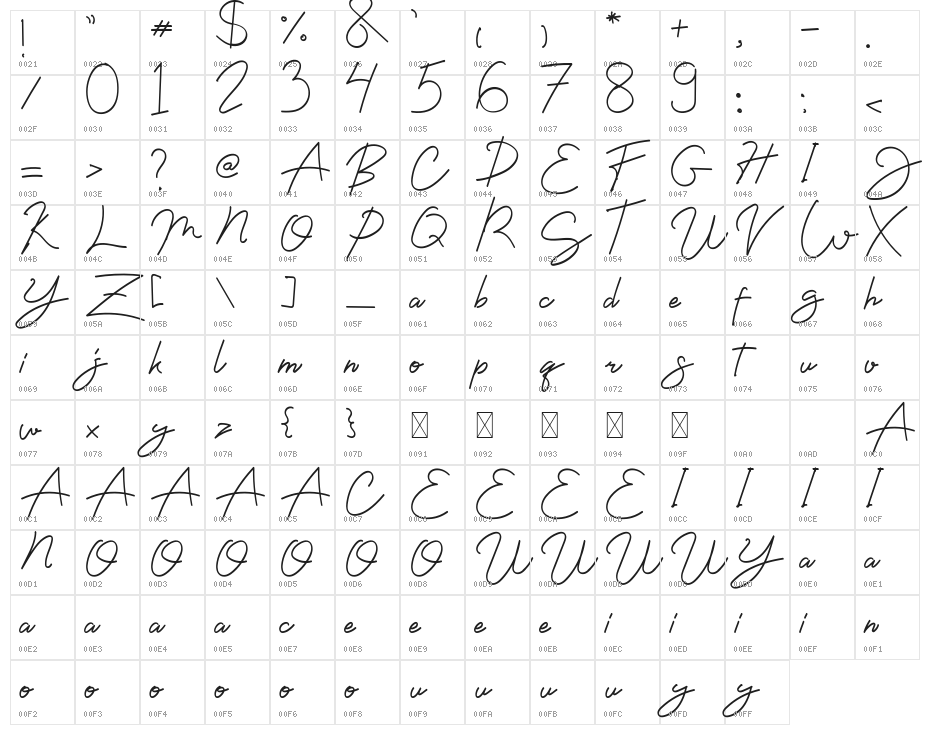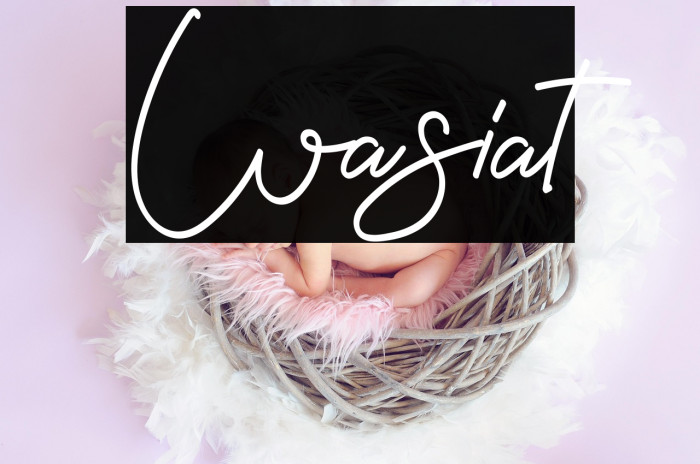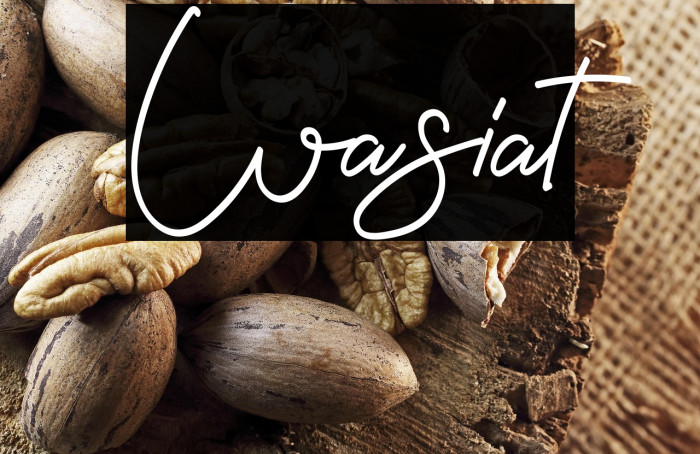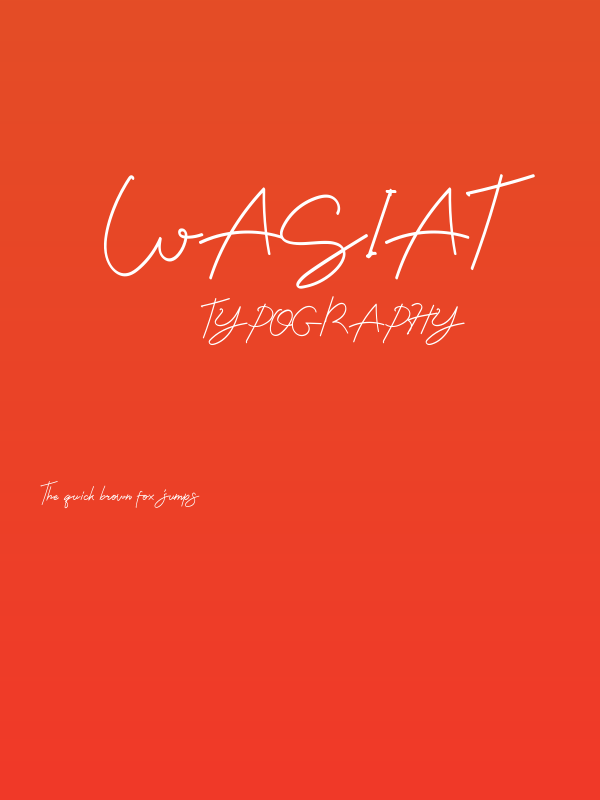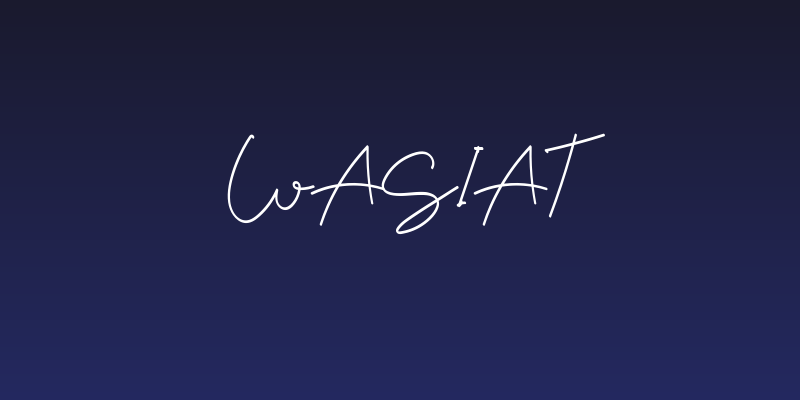
Wasiat Font
Wasiat Description
This font exhibits a dynamic and fluid script style, characterized by its elegant, flowing lines and cursive letterforms. The uppercase letters are slightly more structured, while the lowercase letters display a more casual, handwritten appearance. The numerals are consistent with the overall style, maintaining a balance between readability and artistic flair. Special characters are seamlessly integrated, enhancing the font's versatility. The overall impression is one of sophistication and creativity, making it suitable for a variety of design applications.
| Use Case | Logos, Invitations, Artistic projects |
| Proposed Projects | Ideal for wedding invitations, greeting cards, personal branding, and artistic projects requiring a touch of elegance. |